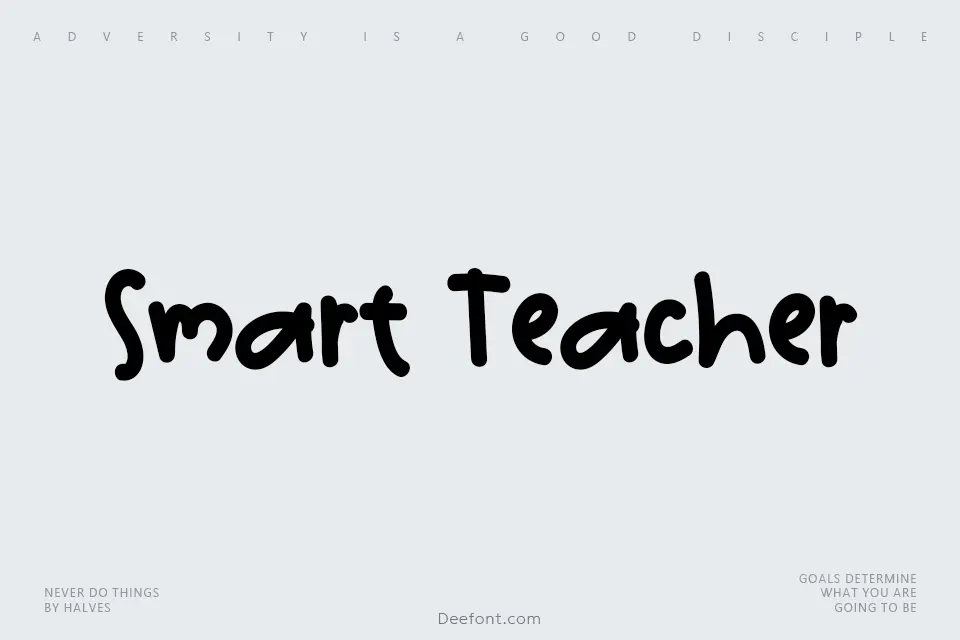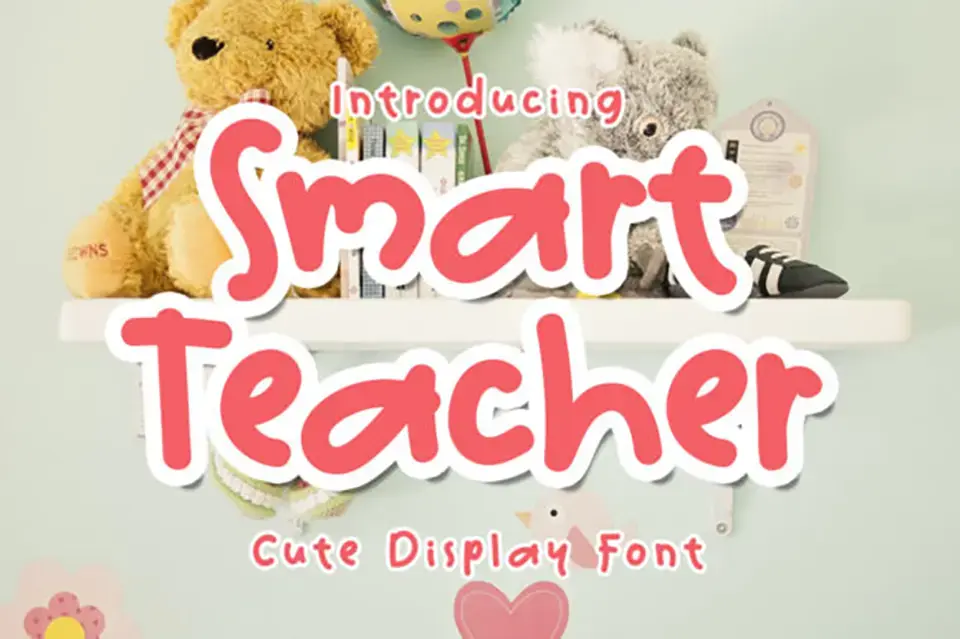
Smart Teacher Font
Smart Teacher is an adorable handwritten script font featuring thick, rounded letterforms that bring warmth and charm to any design project. With its playful, friendly character, this typeface excels in educational materials, classroom posters, worksheets, titles, and decorative headlines. The soft, approachable aesthetic makes it ideal for teachers and educators seeking engaging typography for students. Its distinctive style works beautifully for invitations, greeting cards, social media graphics, and any project requiring a personal, approachable touch.